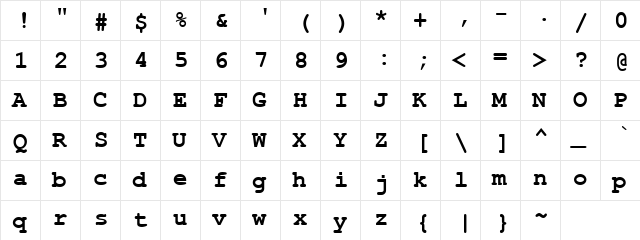
Type Writer B Regular
Design Context for Type Writer B Typeface
Type Writer B takes a measured approach to typography — its balanced proportions and neutral character make it a reliable workhorse for both digital and print work.
Pro Tip: Use Type Writer B in both headline and body roles to test its range before committing to a single application.